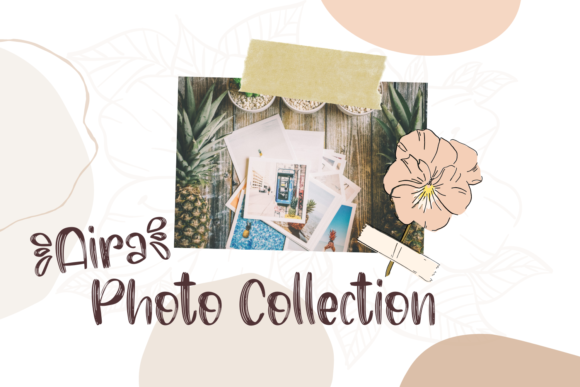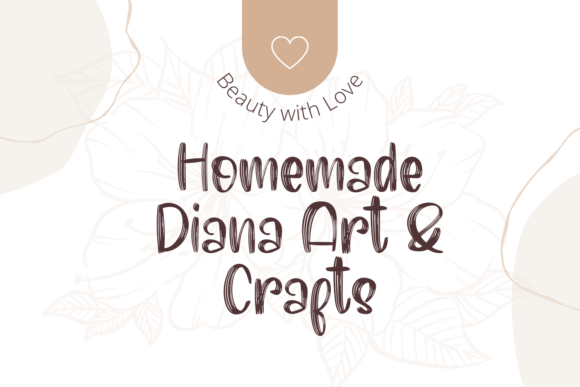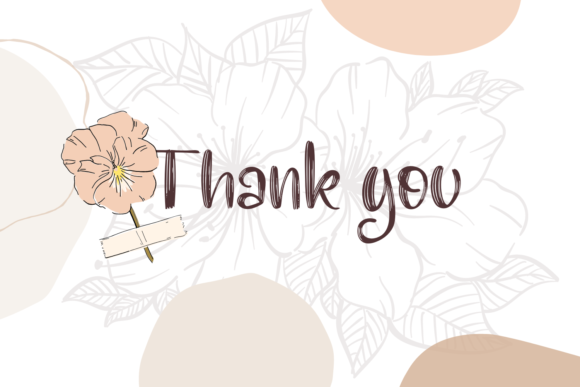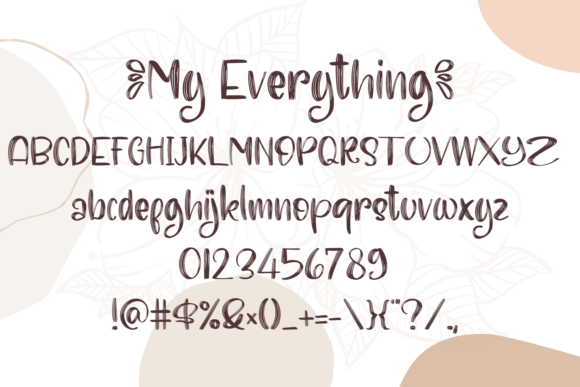
Everything Font
About Everything Font
Everything is a cool and brushed handwritten font. Not too thin and not too thick, balanced and varied, this font was designed to enhance the beauty of your projects.